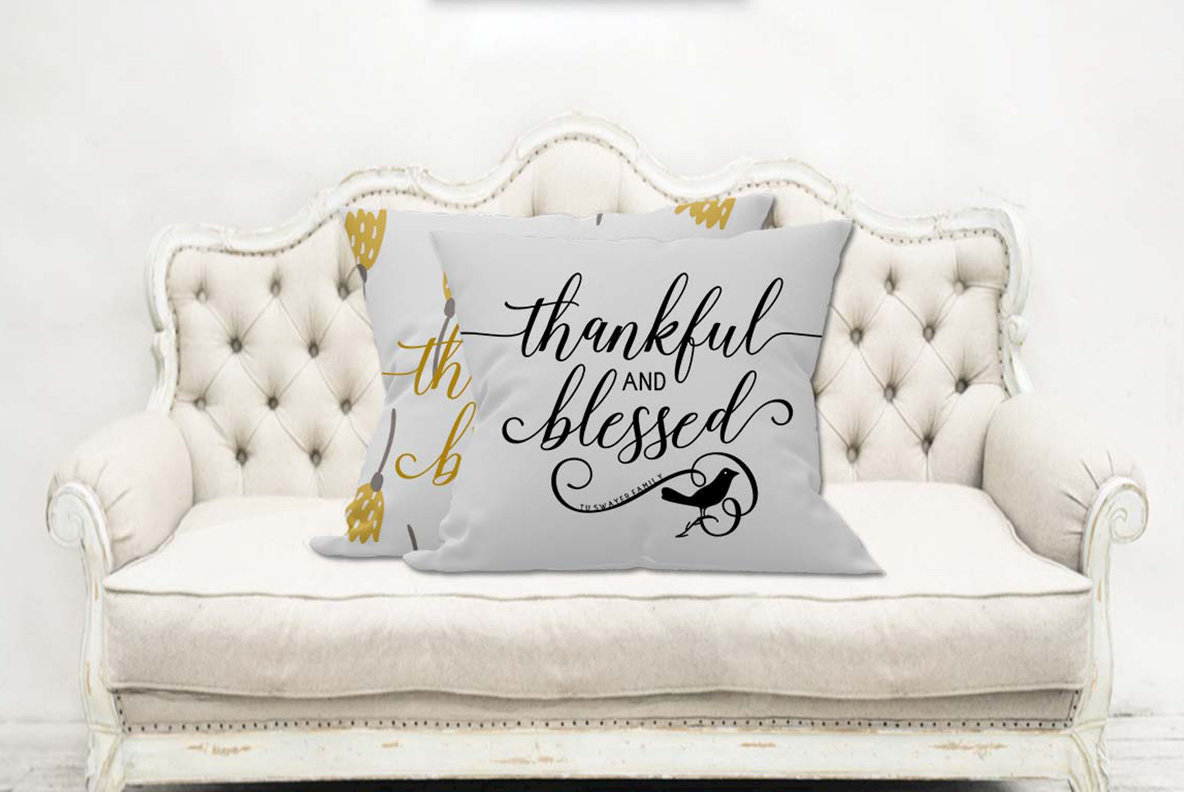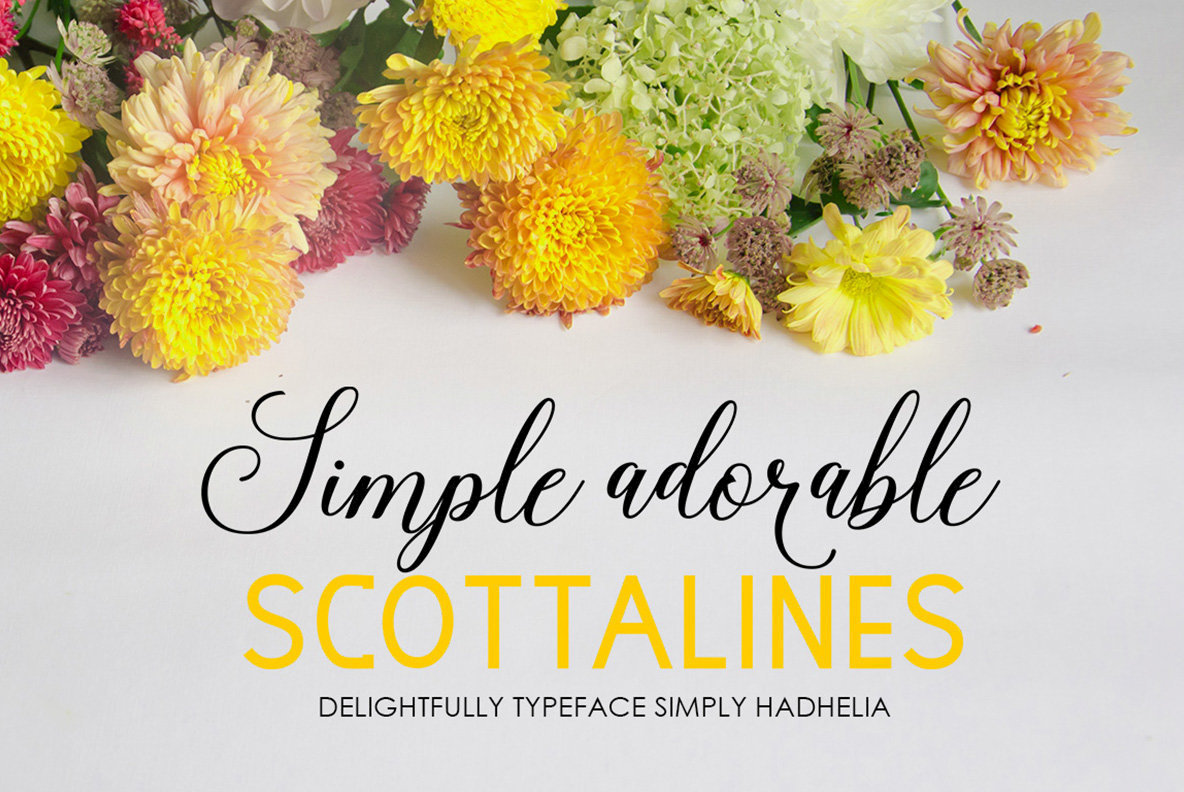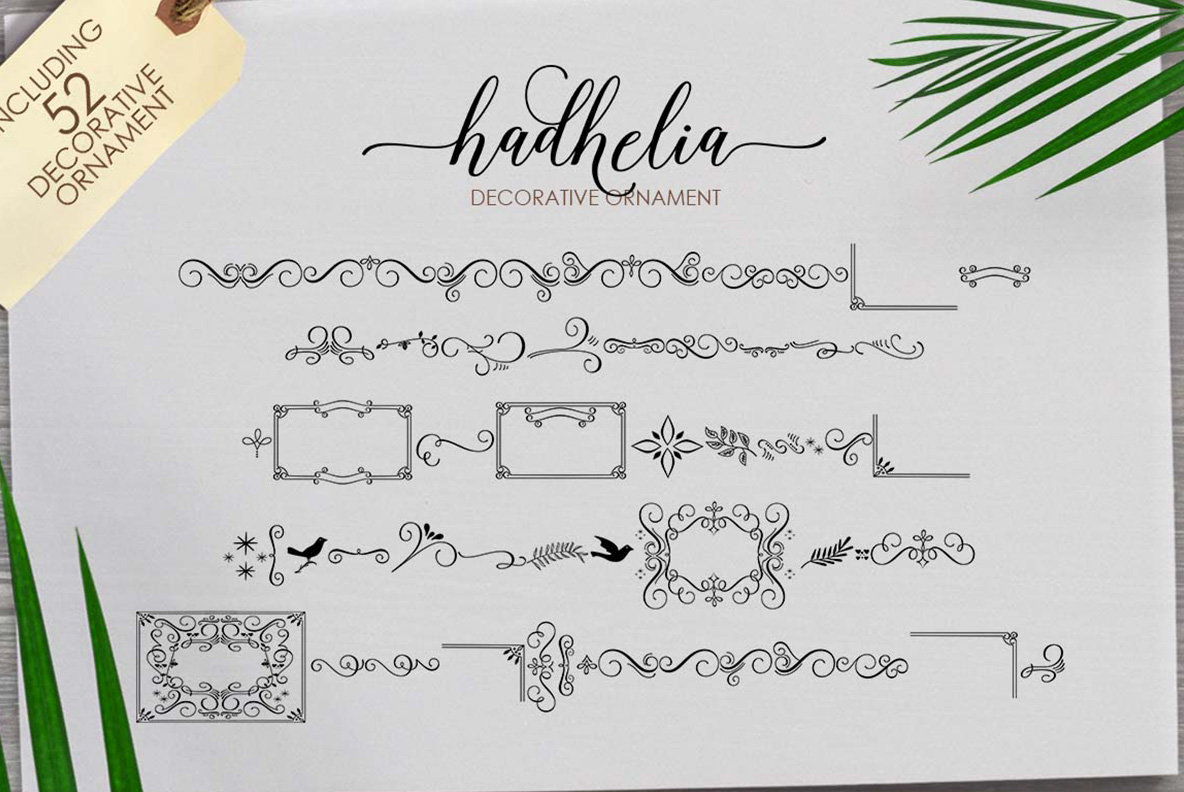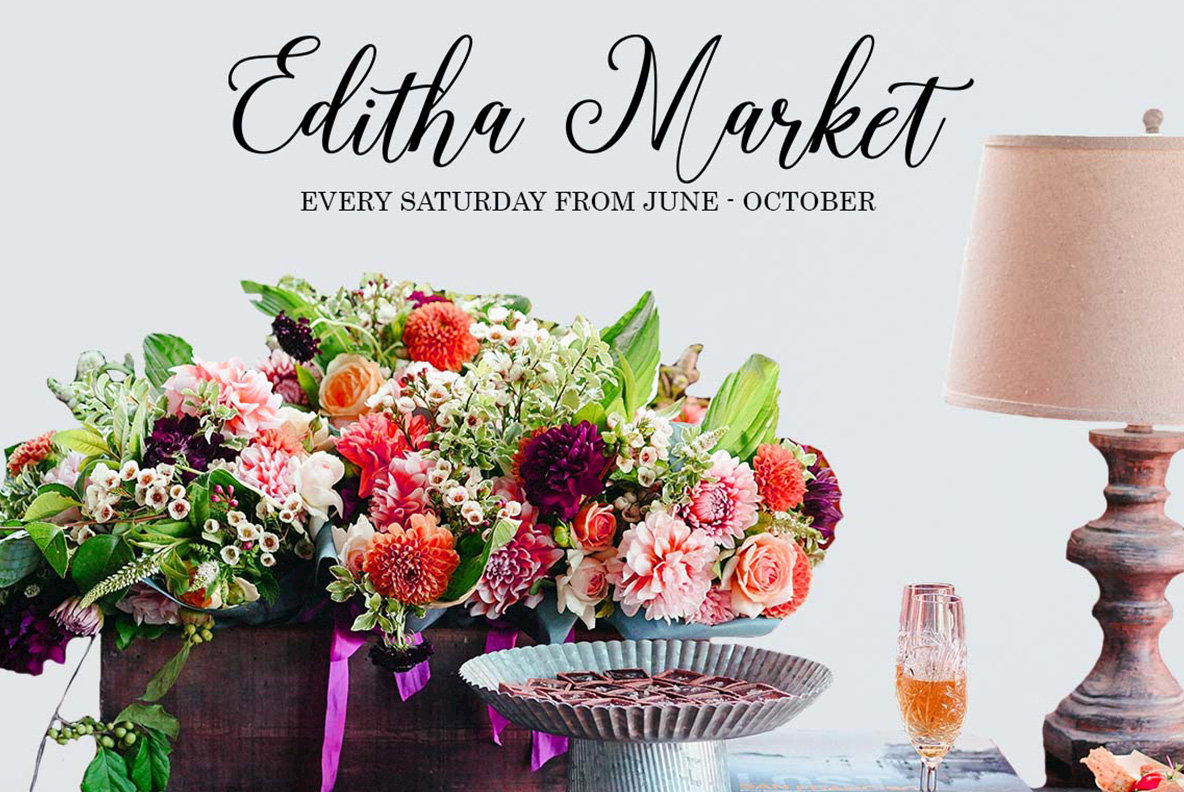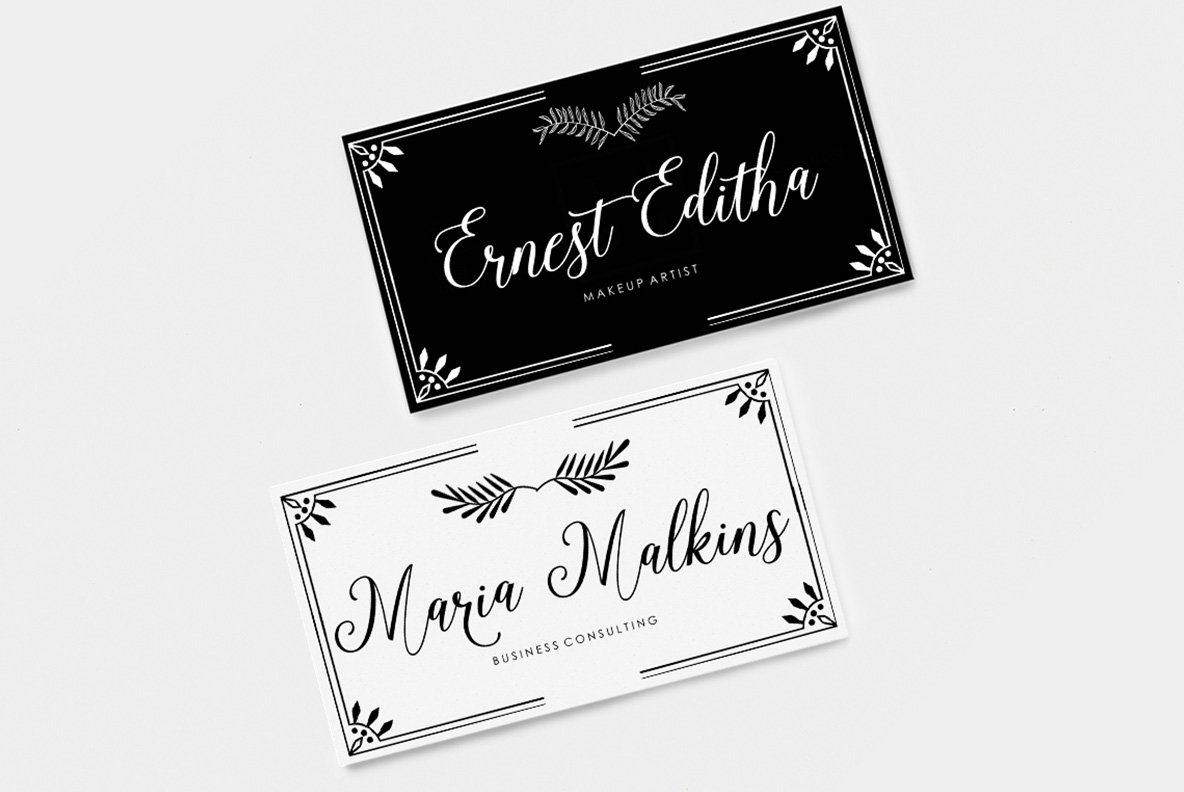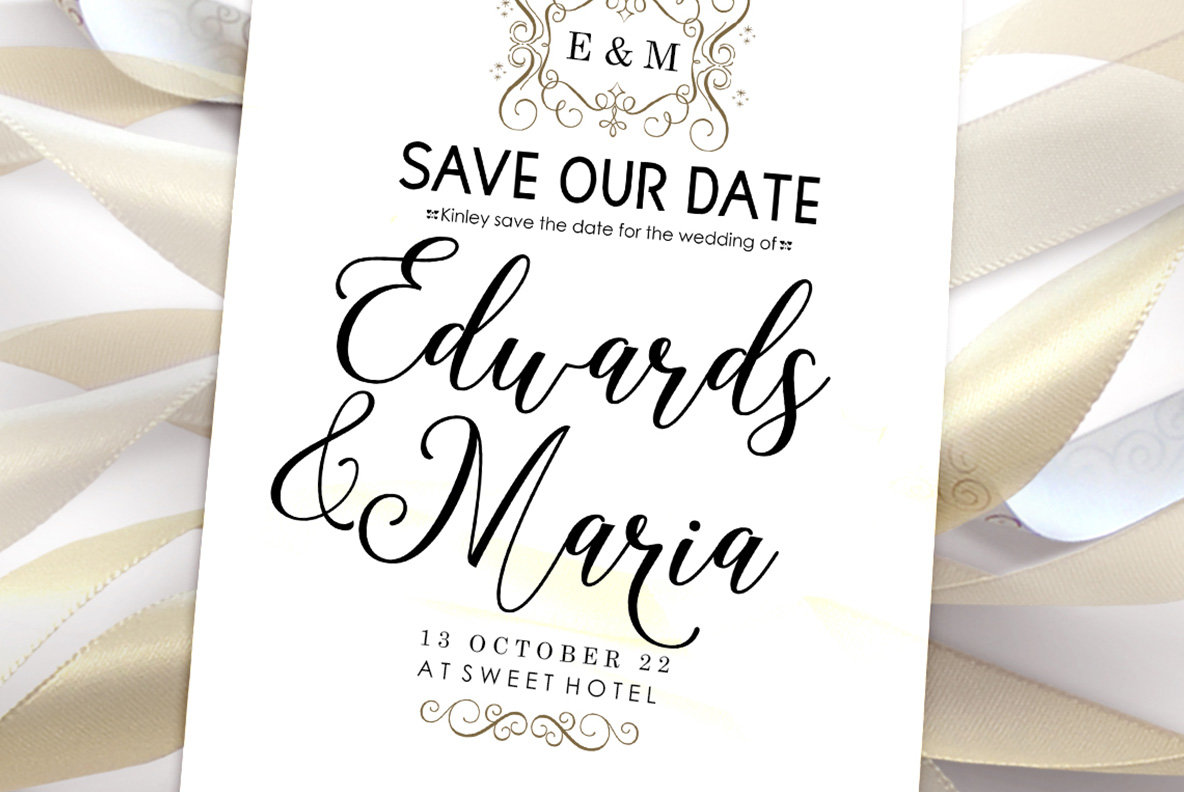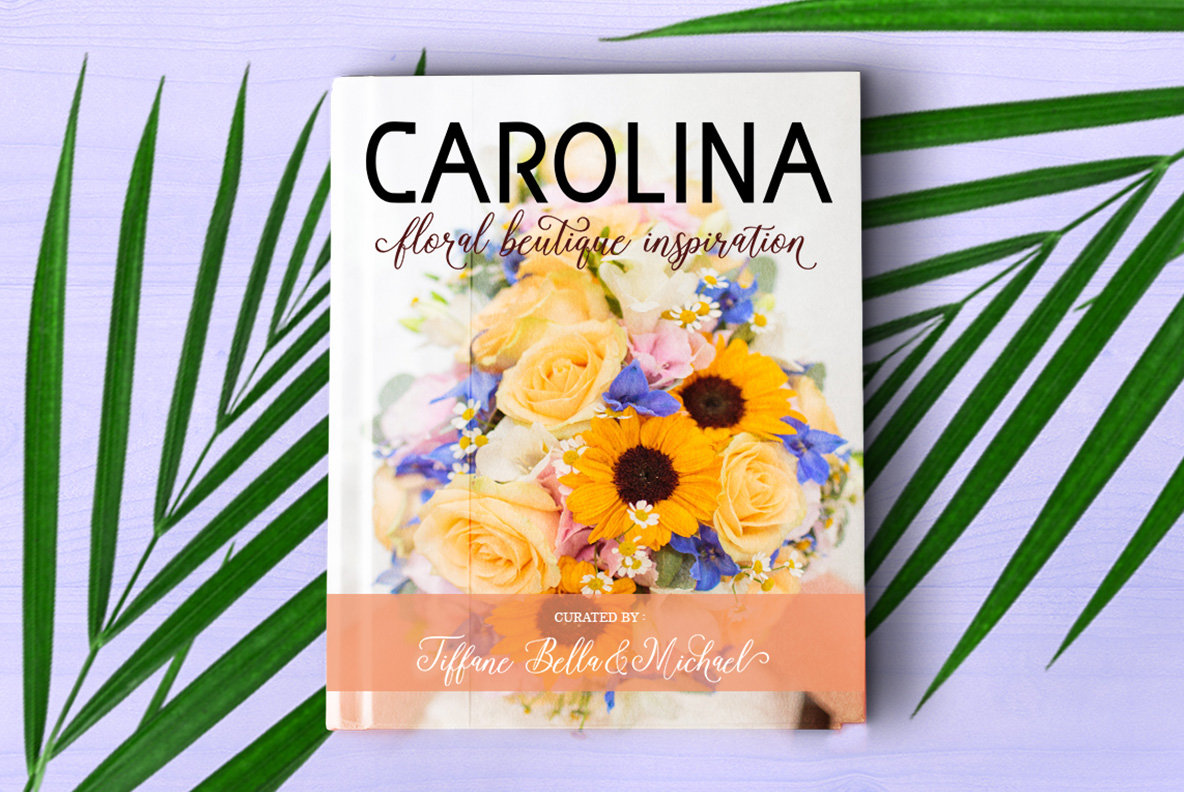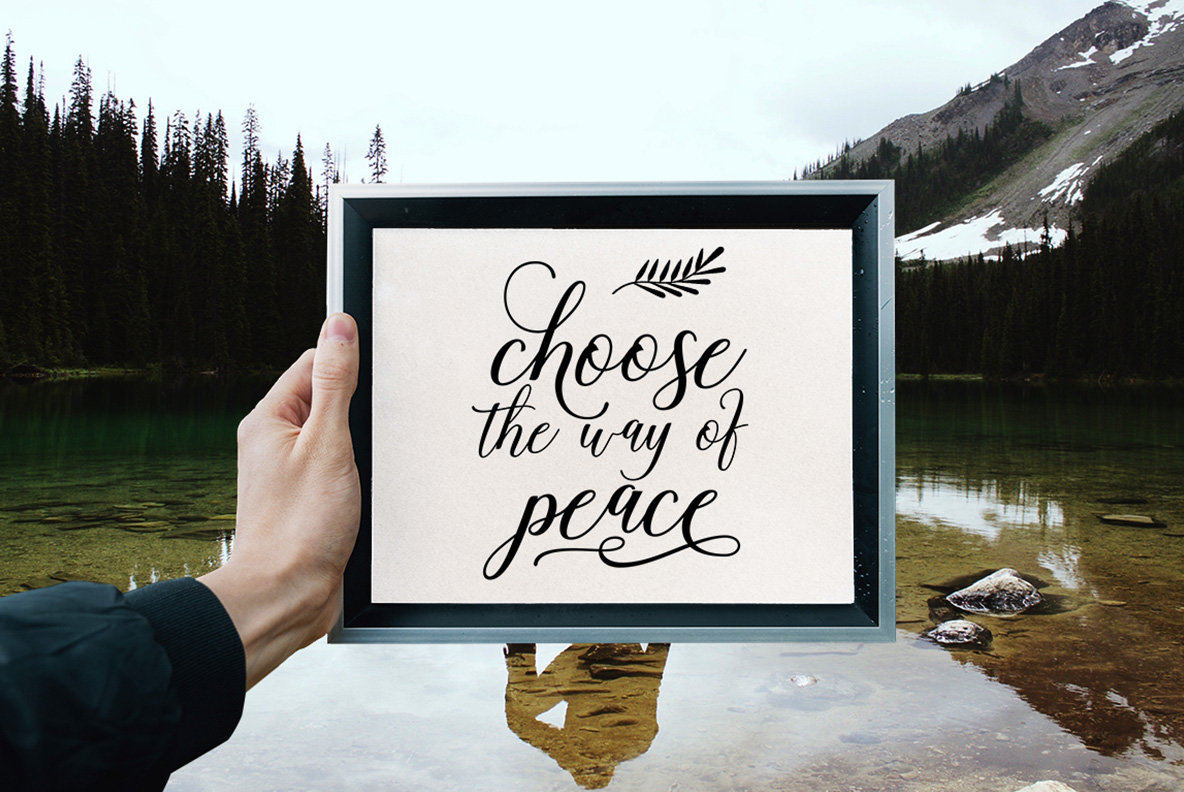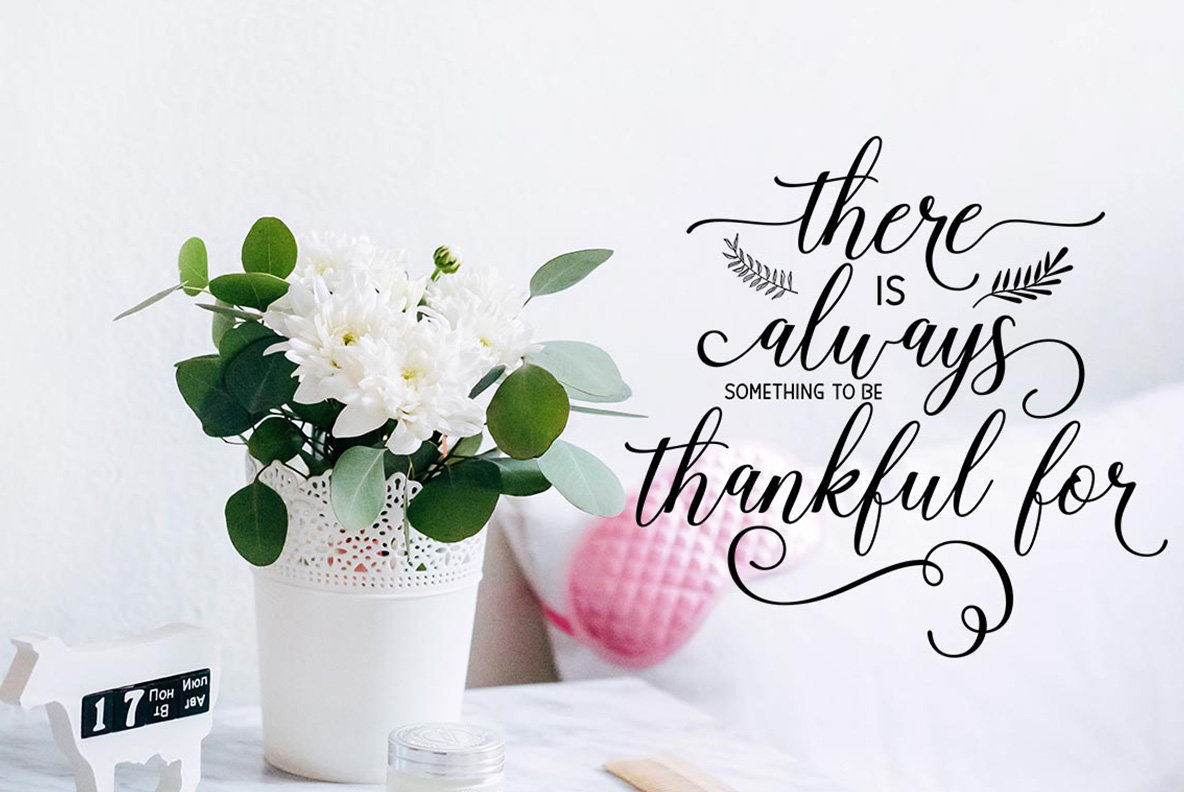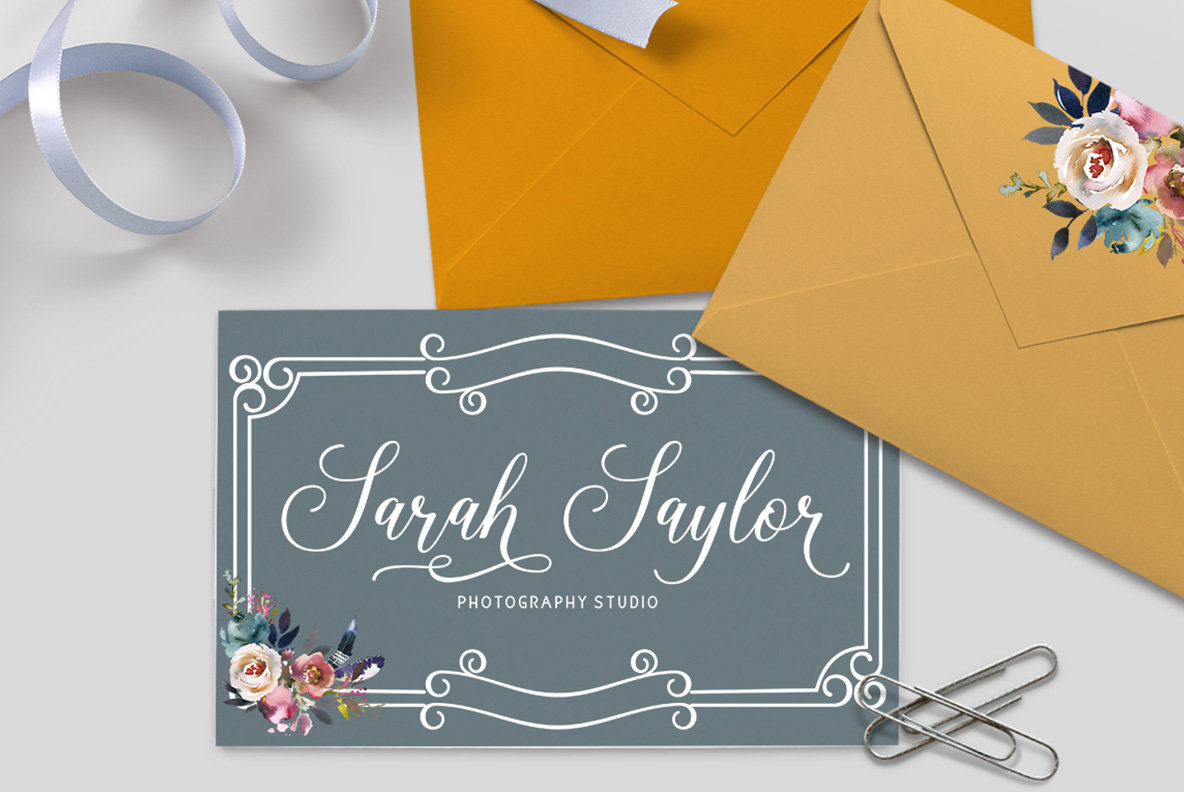
Hadhelia Script Font
Hadhelia Script offers a modern approach to calligraphy, blending casual aesthetics with artistic flourish. Featuring Regular, Sans, and Ornament styles, this font suits a myriad of design needs from logos to wedding invitations. Compatible with design platforms like Adobe Illustrator and CorelDraw, Hadhelia Script is also accessible through Mac's Font Book and Windows' Character Map, making it versatile for any project. Elevate your work with Hadhelia Script's captivating design that speaks to modern creativity.Hadhelia Script: Elegant Calligraphy for Diverse Projects